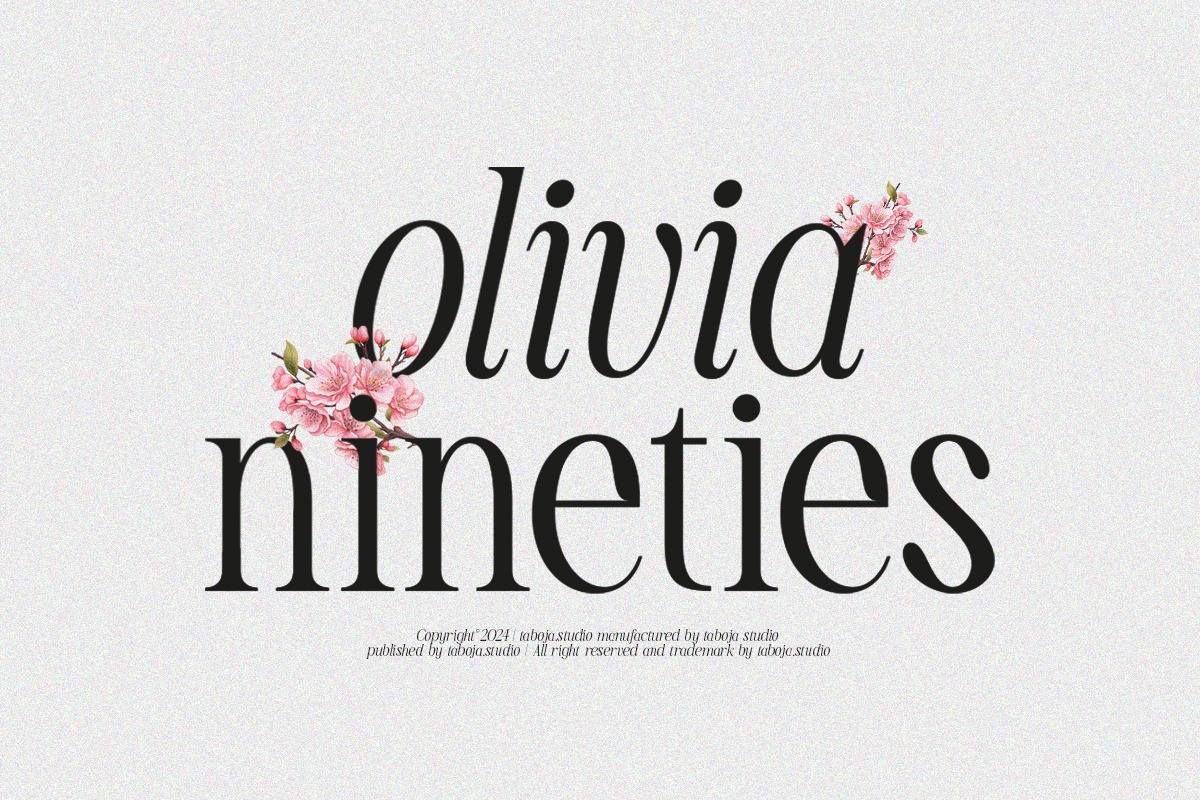
TBJ Olivia Nineties – Classy Serif Font
TBJ Olivia Nineties – Classy Serif Font is a premium-quality font developed to enhance your work with a polished, modern, and visually elevated look. Olivia Nineties Regular Italic is a font that exudes retro charm with accents reminiscent of 1990s handwriting style. With its light yet distinct slant, this font adds a unique and captivating touch to your designs. Each letter is meticulously designed to provide a distinctive and engaging impression, making text written with Olivia Nineties Regular Italic come alive and vibrant.
The typographic style presented by Olivia Nineties Regular Italic radiates warmth and nostalgia, suitable for design projects aiming to highlight retro or vintage nuances. With a friendly and enthusiastic impression, this font is suitable for use in various contexts such as poster design, logos, product packaging, or other graphic designs.
The intriguing typographic characteristics of Olivia Nineties Regular Italic make it the perfect choice to add a creative and unique touch to any design project. With its ability to attract attention and provide a different impression, this font is an ideal choice for those seeking bold and captivating designs.
Olivia Nineties Font Features:
Regular
Uppercase And Lowercase
Alternates And Ligatures
Numerals & Punctuation
Accented characters
Multilingual Support